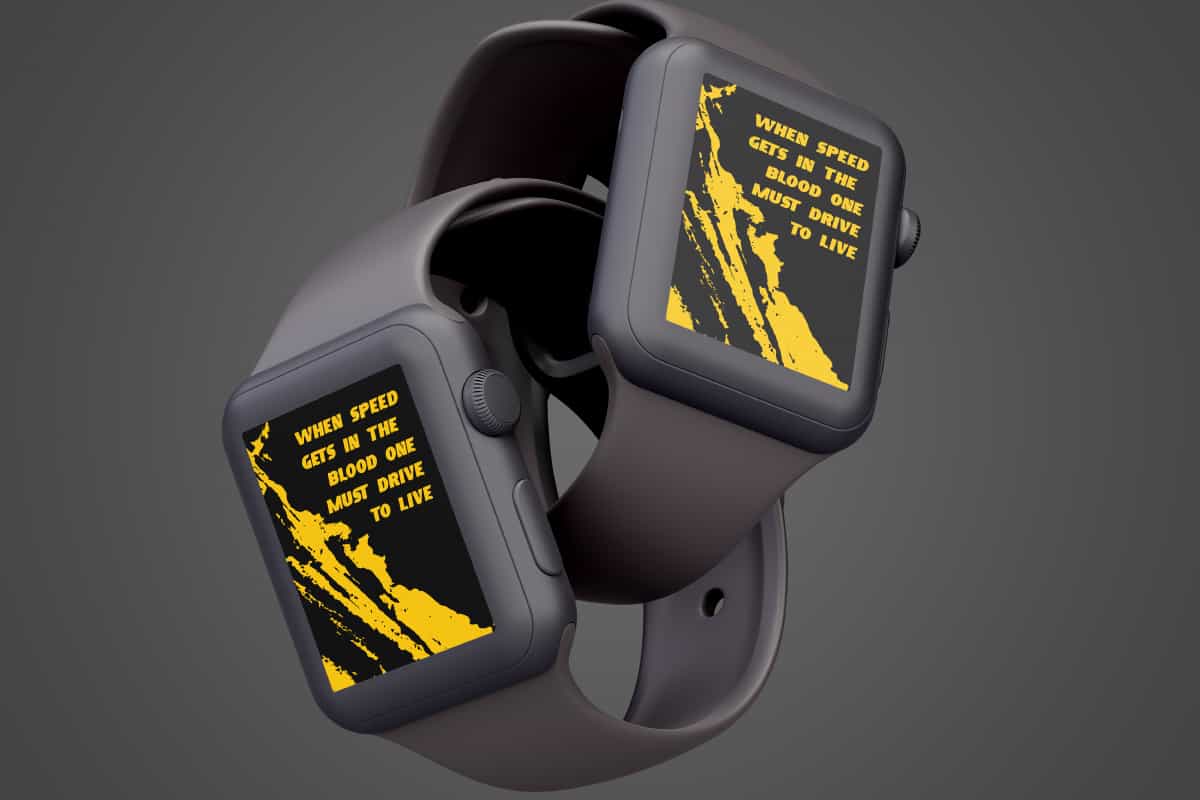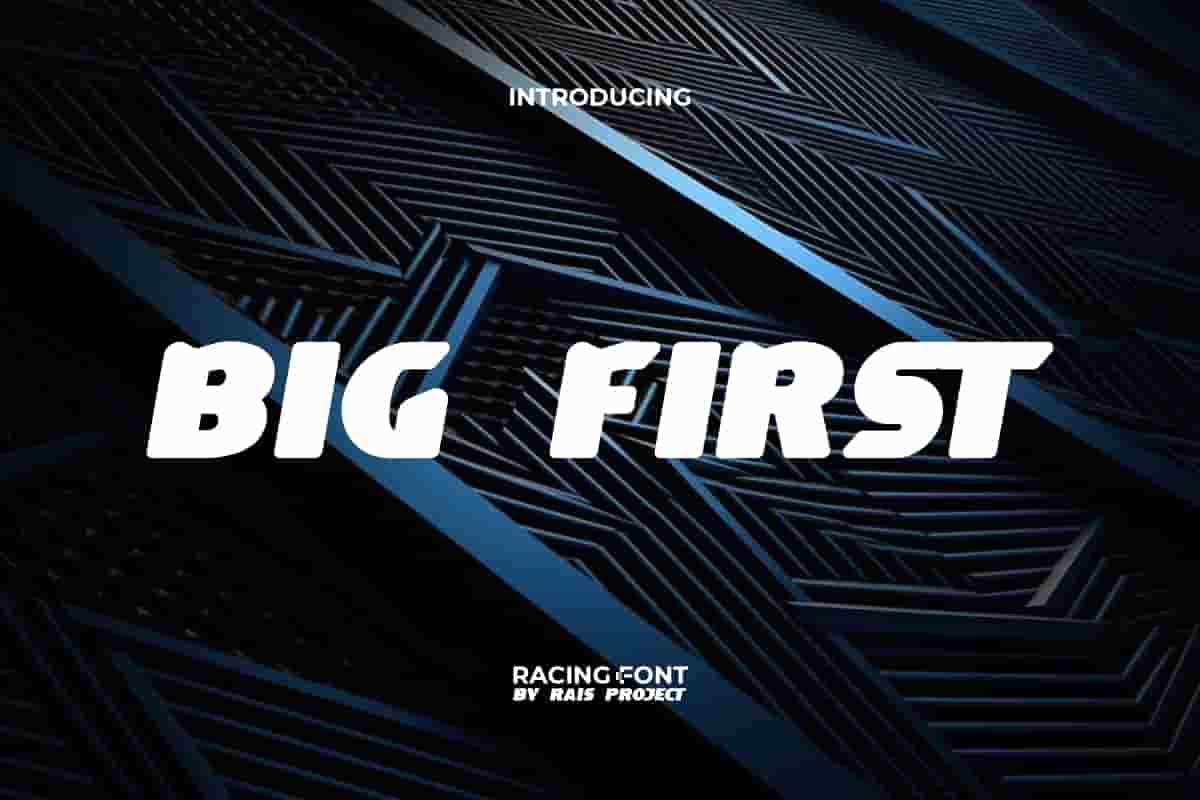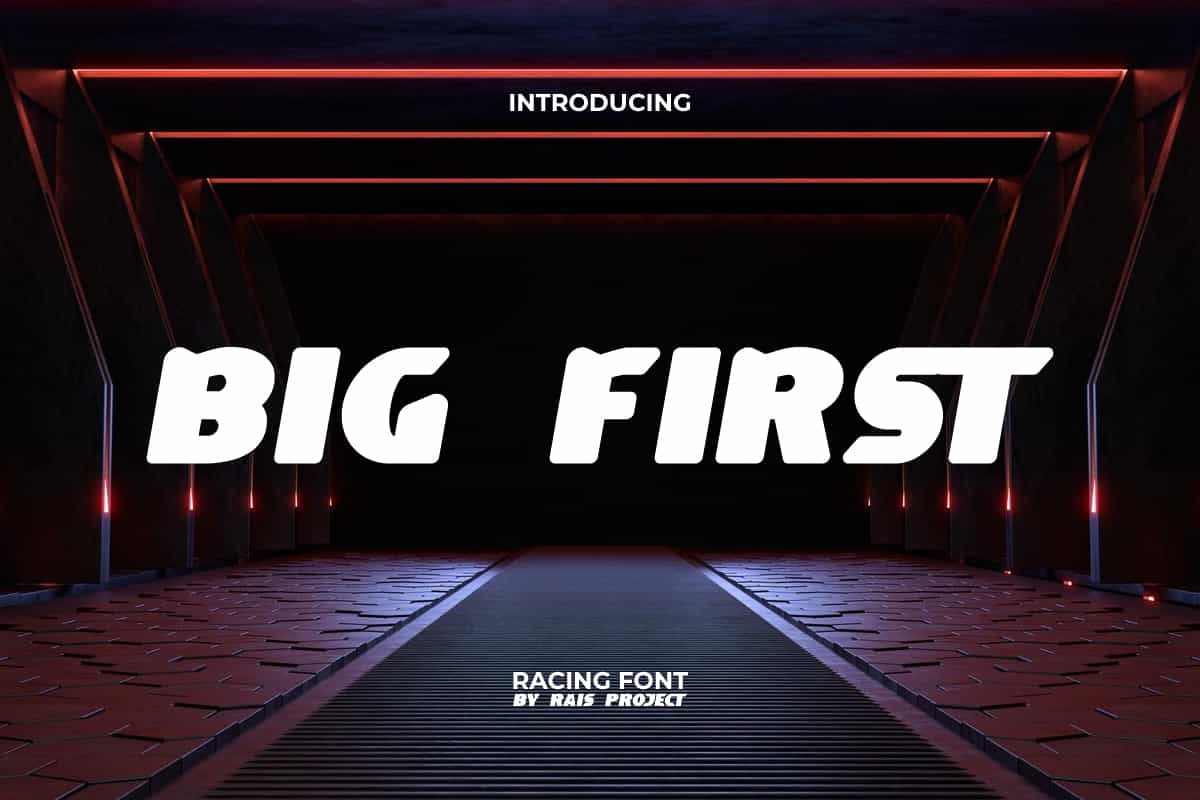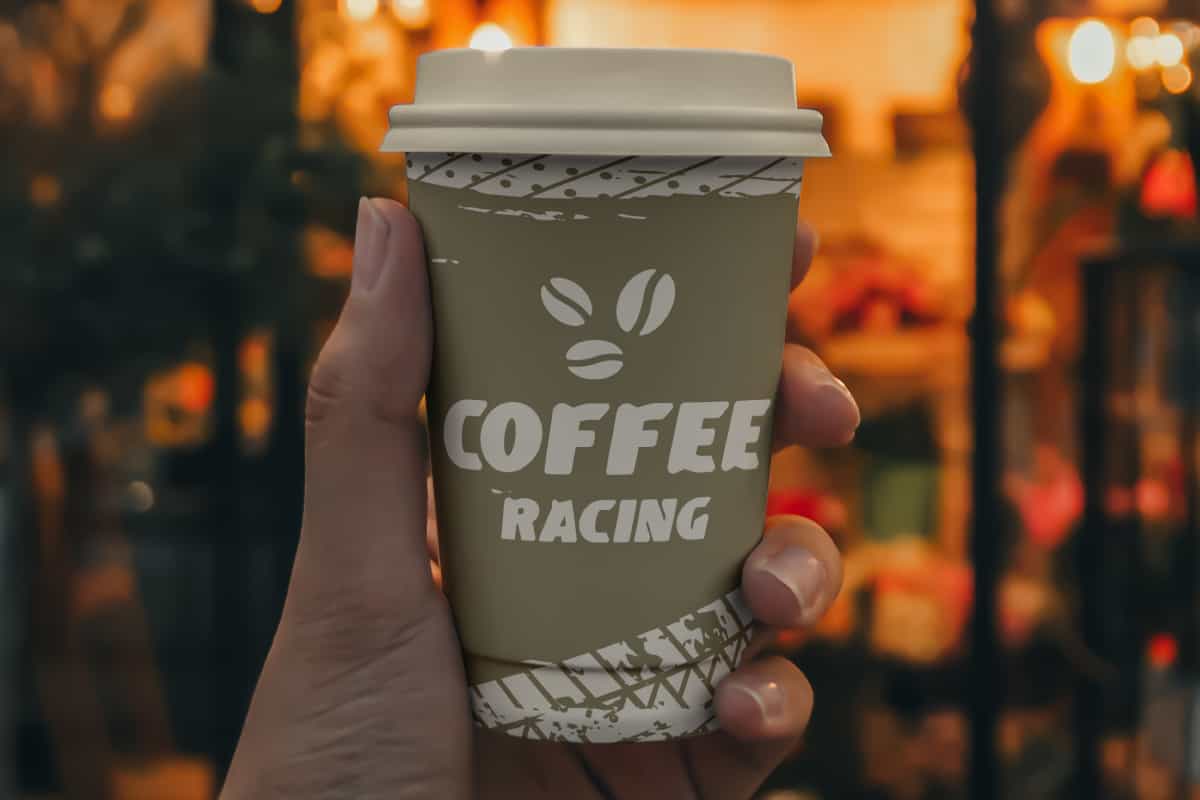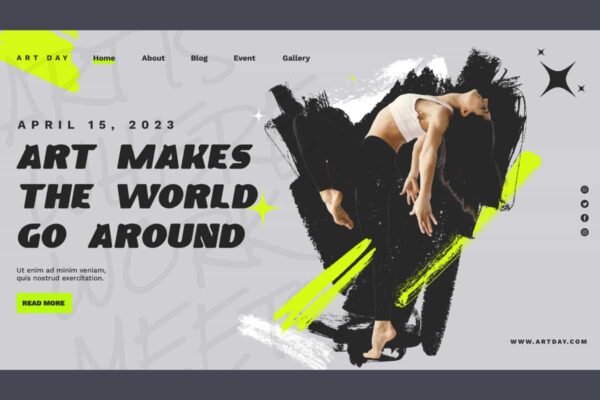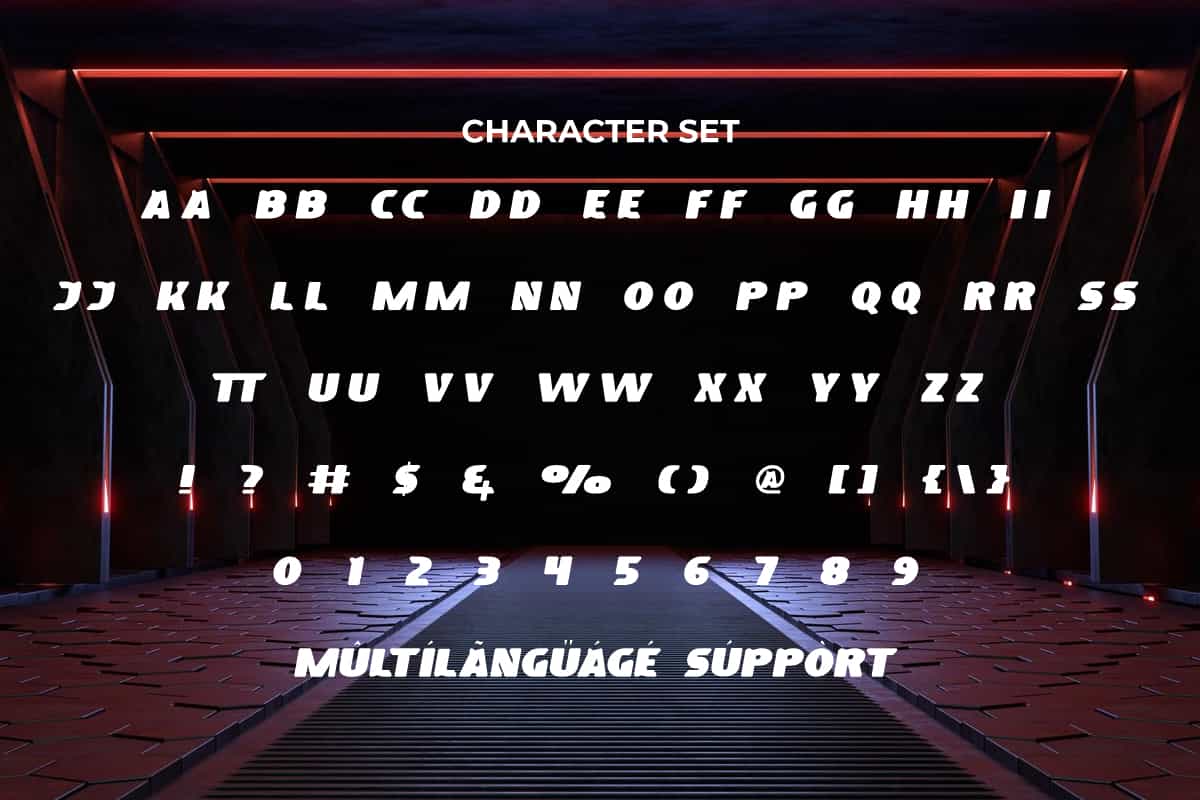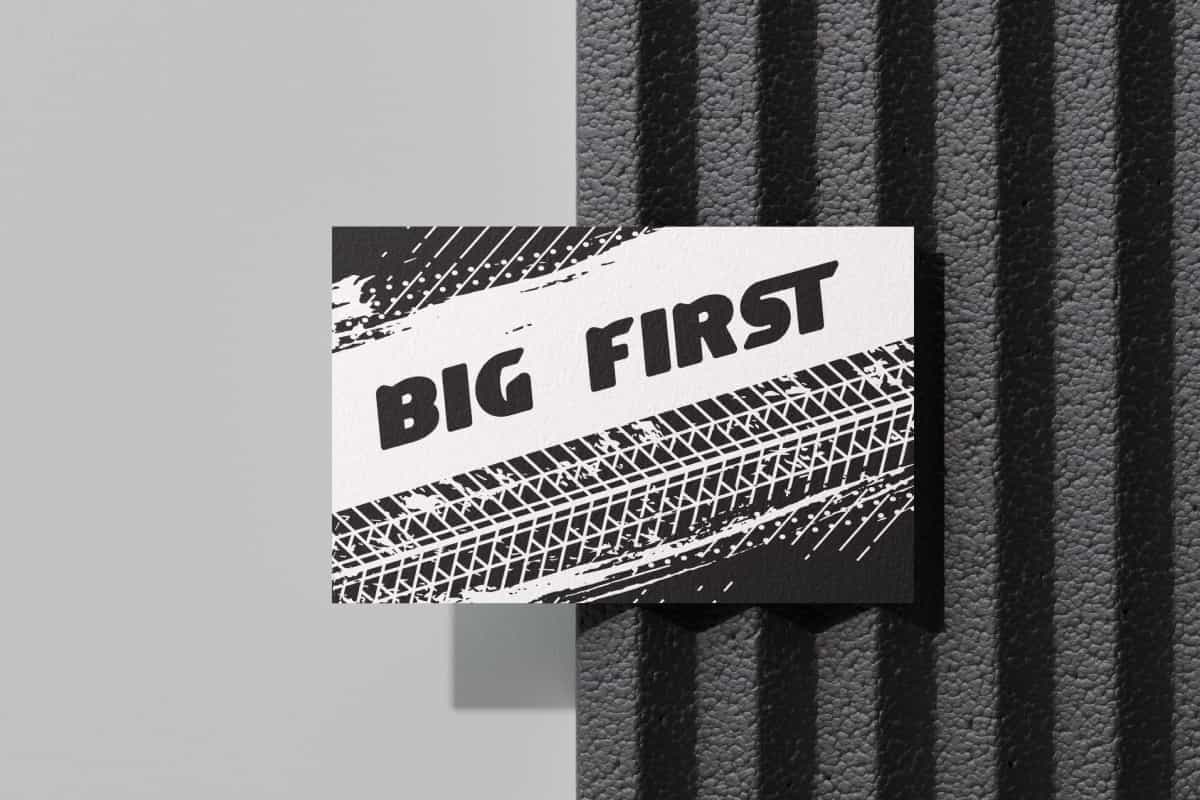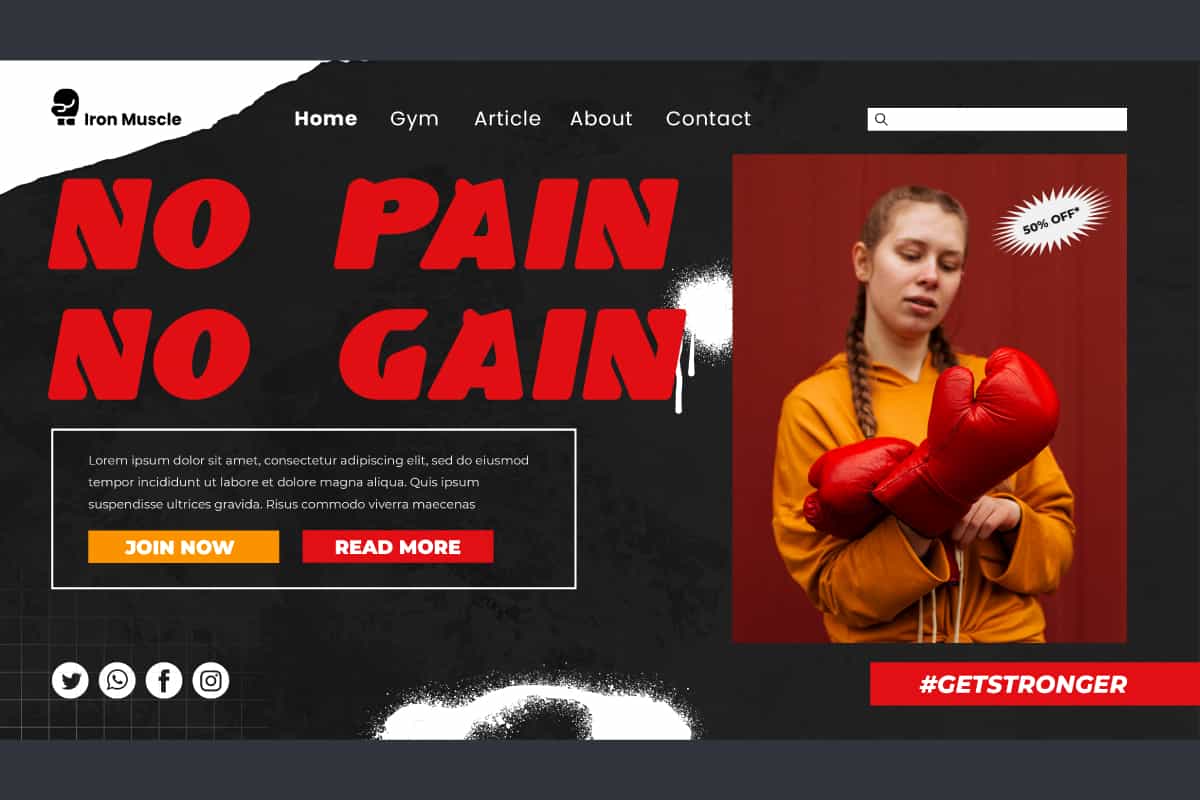
Big First Font
Big First Font is a bold playful and fun gaming racing font. Use this font right now to make your design looks impressive!
Big First Font is a bold playful and fun gaming racing font by RaisProject. This font has a unique and bold shape so it's easy to read. It will be perfect for any designs, such as label, poster, invitation, stationery, custom design, product packaging, quotes, signage, brand image, advertisement, marketing material, website page, and more!
Big First Font includes a full set of ALL CAPS for Uppercase and Lowercase Letters, Numerals, and large range of Punctuation. This bold font will be suitable for various industries, such as automotive, sports, fashion, game, barber shop, cafe, event or festival, photography, printing, publishing, etc.